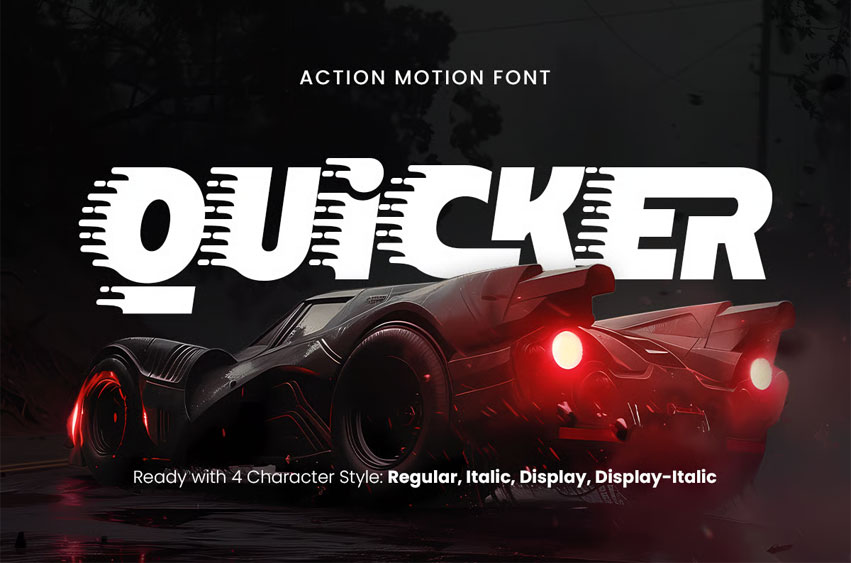
Quicker Font designed to embody motion and action, bringing a sense of speed and energy to any project. Inspired by the world of sports, action films, and dynamic graphics, Quicker delivers bold, powerful letterforms that convey movement and intensity. Each character is crafted to ensure your message captures attention with a striking presence.
Perfect for action movie titles, sports branding, and promotional materials, Quicker adapts effortlessly to various design needs. Its modern and sleek style adds a kinetic feel to logos, headlines, and digital designs. The font’s dynamic essence ensures your projects stand out with confidence and power.
Unleash the potential of Quicker to transform your creative visions into bold, unforgettable experiences. This action motion font ensures your designs resonate with energy and precision, leaving a lasting impression.
Quicker Action Motion Font Features:
• Ready with Regular, Italic, Motion Regular, Motion Italic
• Unique Motion Characters Ready
• Punctuation, Number, and Symbol
• Uppercase and Lowercase
• Opentype Features
Multilingual Characters available for:
Afrikaans, Albanian, Asu, Basque, Bemba, Bena, Breton, Chiga, Cornish, Dutch, English, Estonian, Filipino, Finnish, Friulian, Galician, German, Gusii, Indonesian, Irish, Italian, Kabuverdianu, Kalenjin, Kinyarwanda, Luo, Luxembourgish, Luyia, Machame, Makhuwa-Meetto, Makonde, Malagasy, Manx, Morisyen, North Ndebele, Nyankole, Oromo, Portuguese, Quechua, Romansh, Rombo, Rundi, Rwa, Samburu, Sango, Sangu, Scottish Gaelic, Sena, Shambala, Shona, Soga, Somali, Spanish, Swahili, Swedish, Swiss.